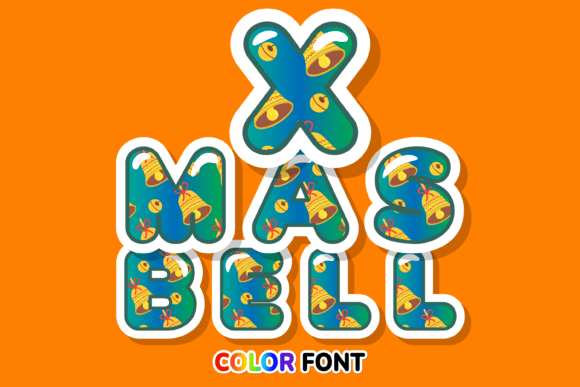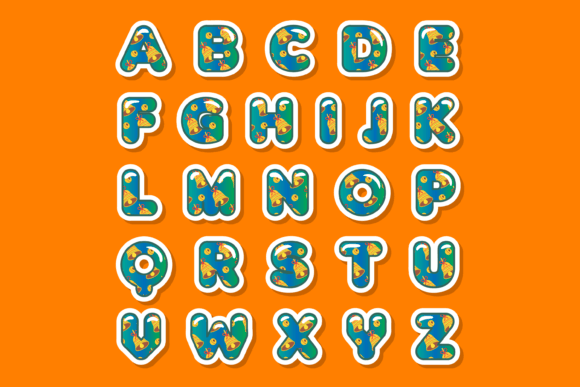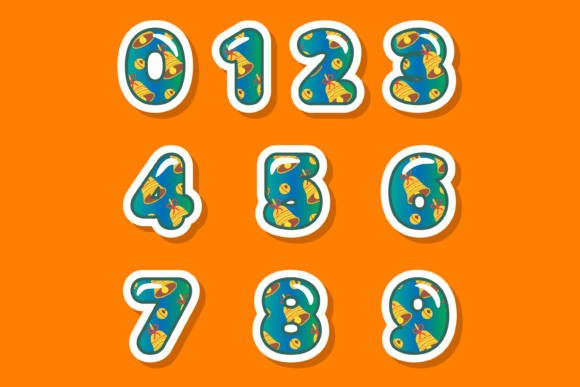
Xmas Bell Font
About Xmas Bell Font
The Xmas Bell font is an incredibly cool and festive color font that adds a touch of holiday spirit to your designs. With its charming and whimsical bell-shaped letterforms, this font is perfect for creating custom designs, DIY crafts, and any creation that requires a lovely touch.
Whether you’re designing Christmas cards, holiday invitations, festive banners, or social media graphics, the Xmas Bell font will bring a joyful and celebratory vibe to your projects. Each character is filled with vibrant colors, resembling the iconic bells that ring during the holiday season.
The Xmas Bell font is not only visually appealing but also versatile in its application. You can use it for various DIY crafts such as holiday ornaments, gift tags, scrapbooking, and more. Its unique and playful style will add a special touch to your handmade creations and make them stand out.
The color aspect of the font allows you to experiment with different color combinations, giving you the flexibility to match the font with your overall design concept. Whether you prefer classic red and green or a more contemporary color palette, the Xmas Bell font will adapt beautifully to your creative vision.
Celebrate the holiday season with the Xmas Bell font and infuse your designs with a delightful and festive atmosphere. Whether you’re creating professional designs or engaging in fun DIY projects, this font is an amazing choice that will bring joy and cheer to any creation. Embrace the holiday spirit and let the Xmas Bell font be your go-to choice for adding a lovely touch to your designs.